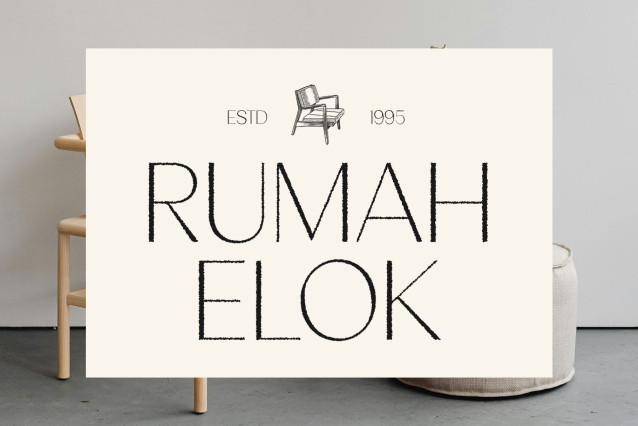
Quackey Rough Font
Quackey Rough Font is a modern sans serif font characterized by its slim, clean, and stylish letterforms. The font’s refined geometry and elegant proportions give it a polished and professional appearance, perfect for designs that demand a modern yet approachable look.